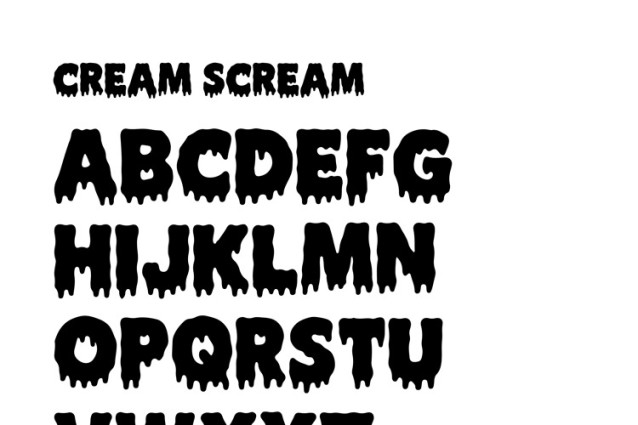
AMD Cream Scream Font
AMD Cream Scream Font is a font designed to match the shape of ice cream. Love the genuine emotions and use them to create beautiful invitations, beautiful stationery, eye-catching social media posts, cute greeting cards and summer festivals. Add this beautiful display font to all your creative ideas. and see how it stands out.